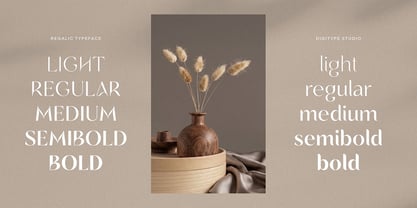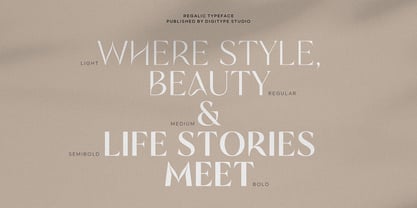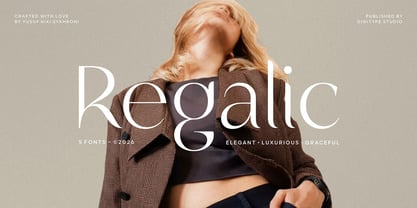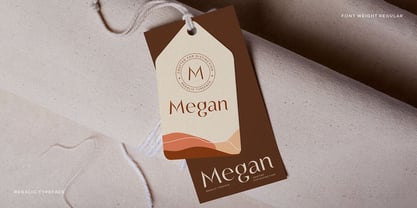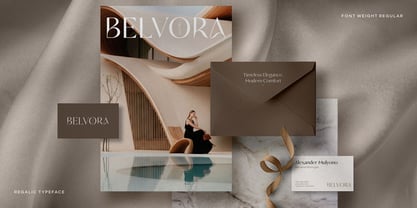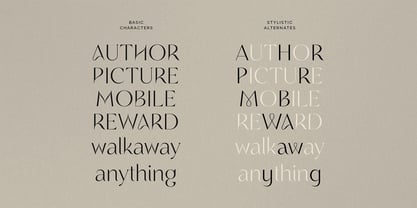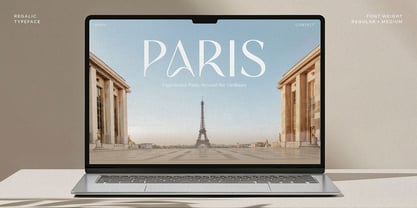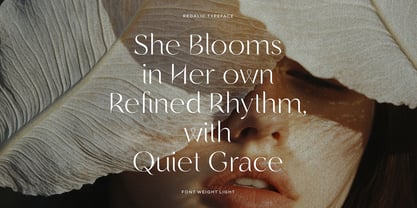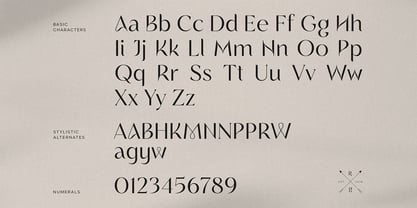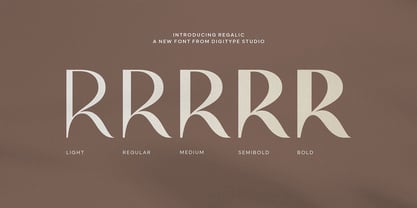
Regalic
by Digitype Studio
The Regalic Font Family was designed by Yusuf Niky Syahroni and published by Digitype Studio. Regalic contains 5 styles and family package options. More about this family
Regalic is a modern display typeface with a refined yet expressive character. Designed with a sculpted approach, this font features subtle intersections between the bowl, leg, and stem, creating a smooth and continuous flow of form. These details build a distinctive and recognizable letter silhouette, consistently applied across all characters, delivering a strong visual identity beyond mere decoration.
This typeface is crafted to capture attention while creating a strong and memorable impression, making it suitable for a wide range of visual needs. It enhances your projects with an elegant, stylish, and distinctive appeal. With a refined yet controlled style, Regalic offers a balance between modern elegance and unique design character.
Designers: Yusuf Niky Syahroni
Foundry: Digitype Studio
Regalic